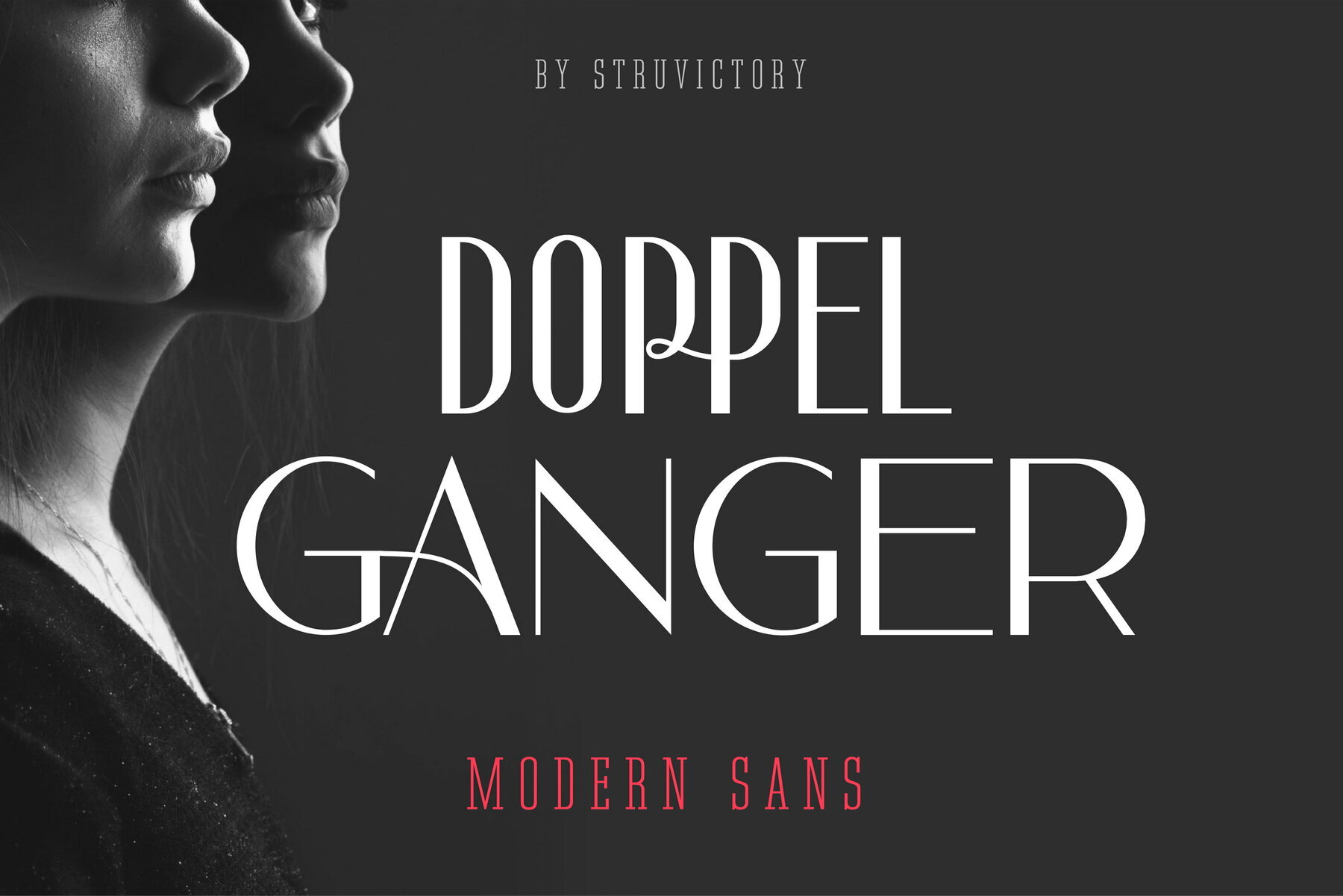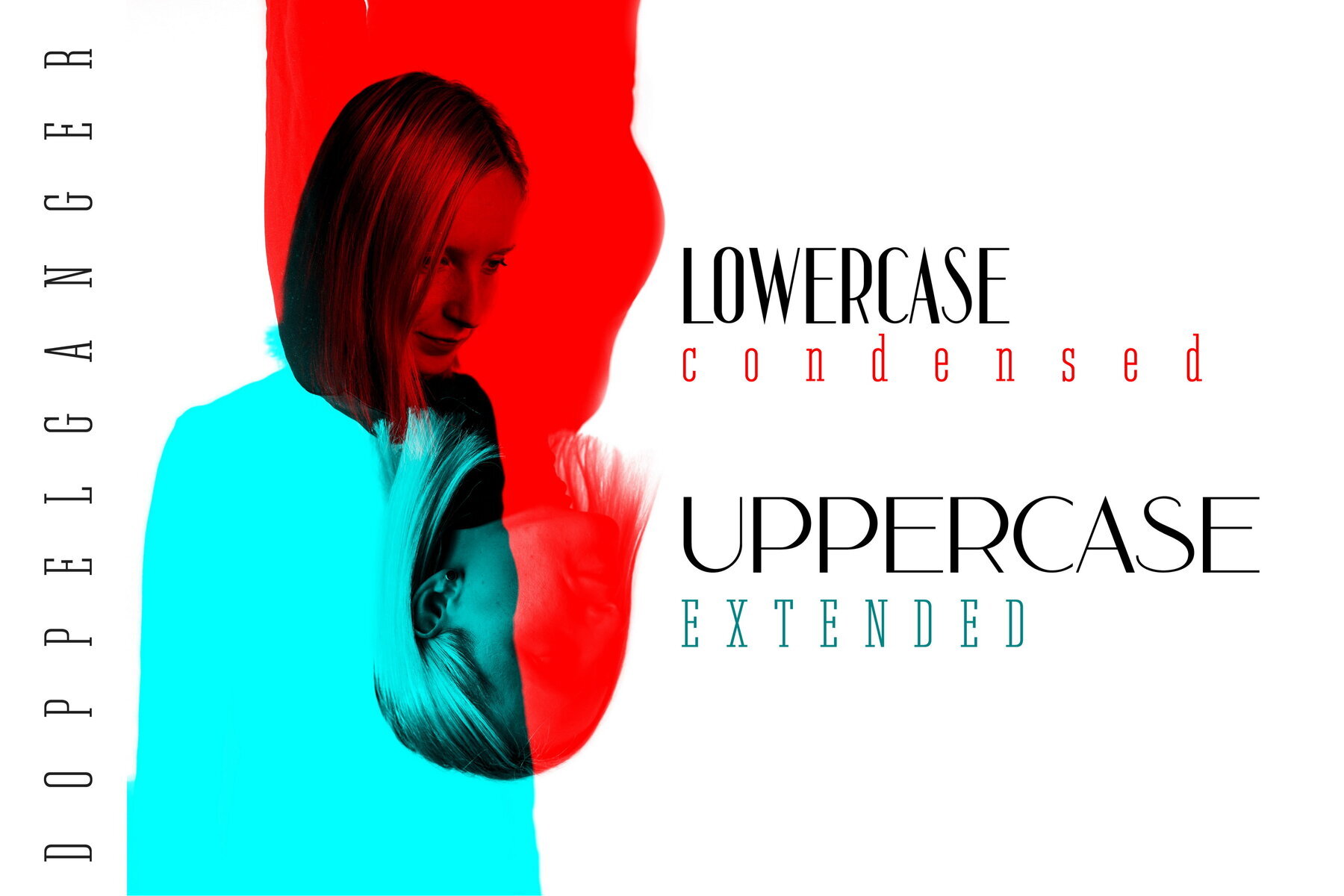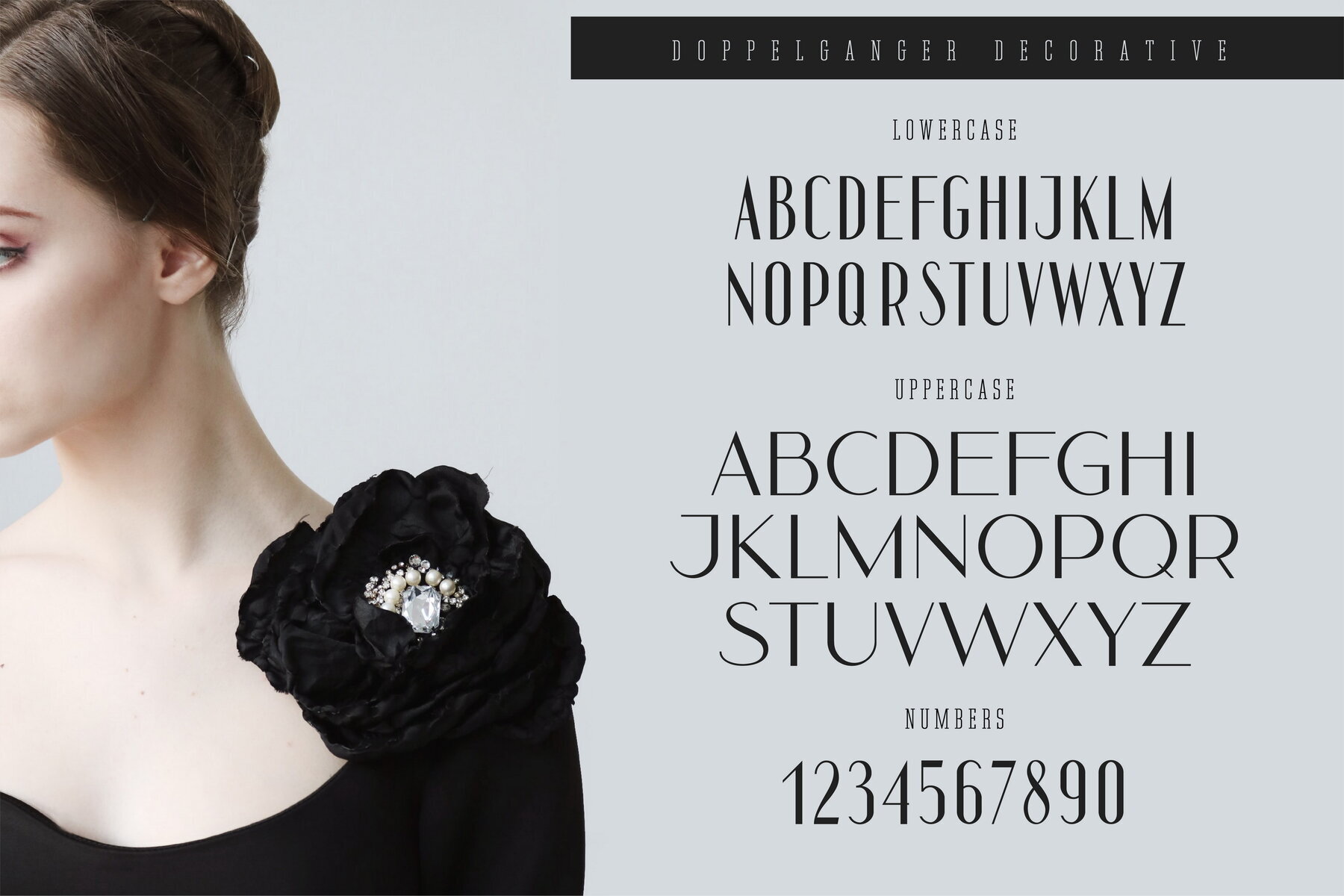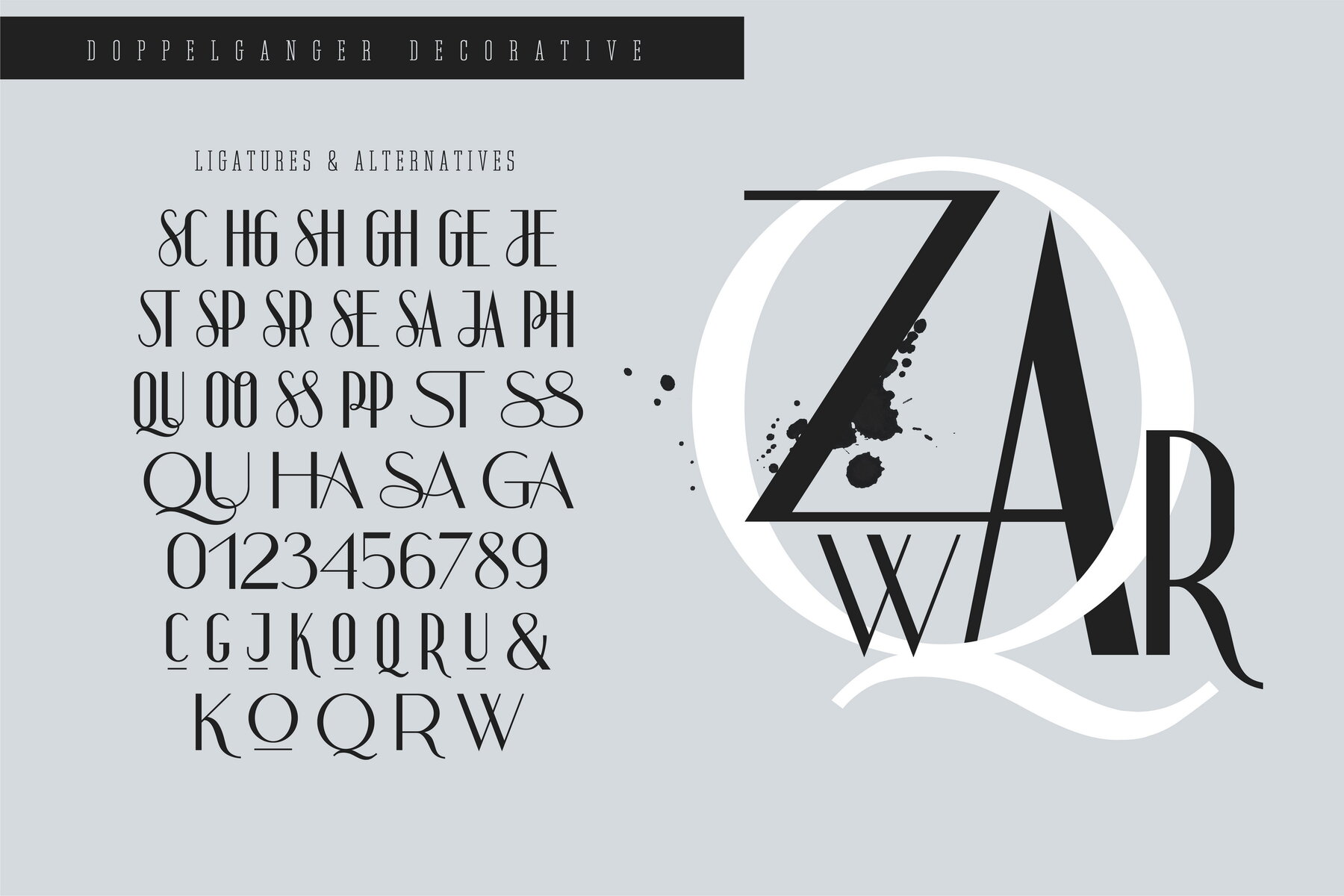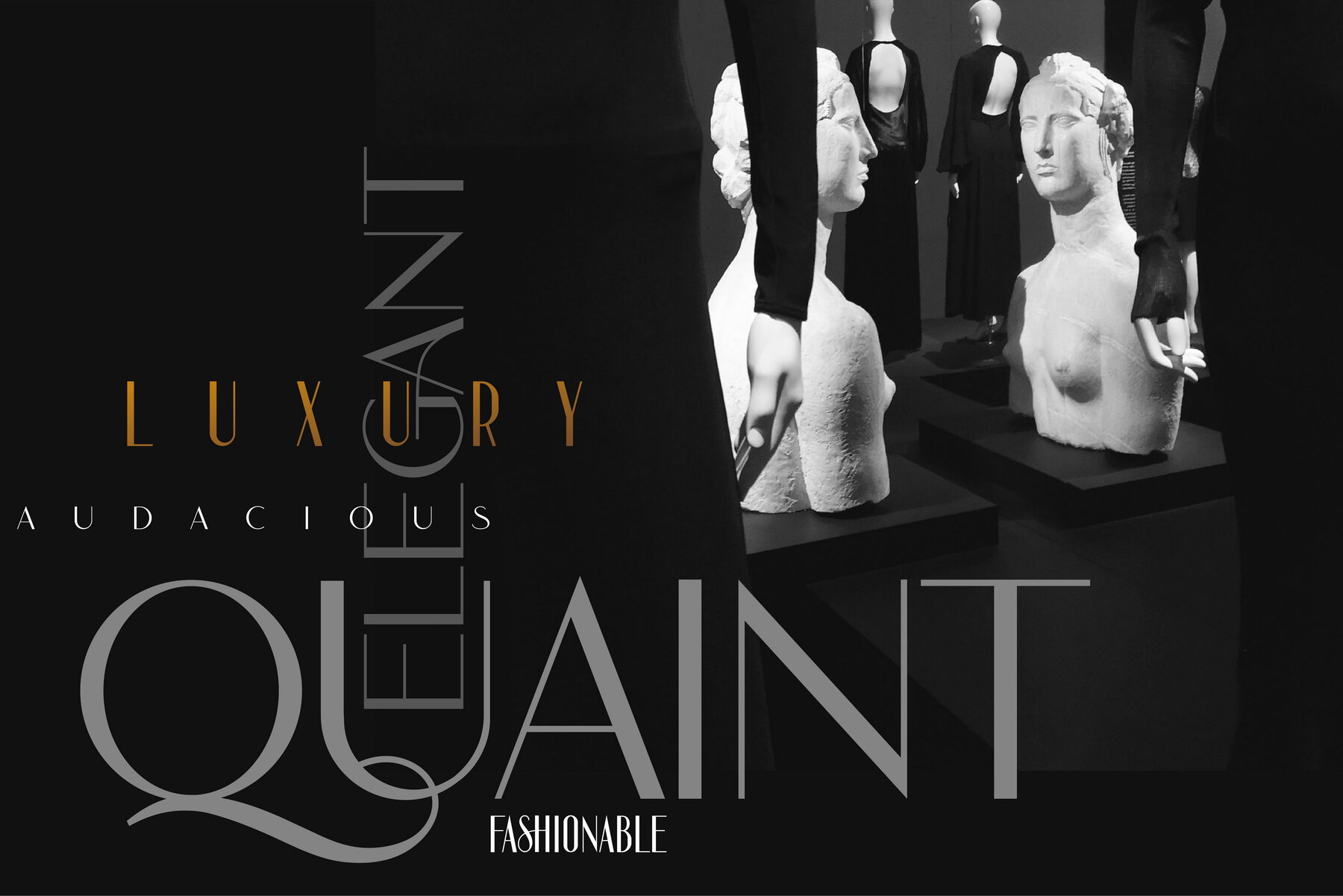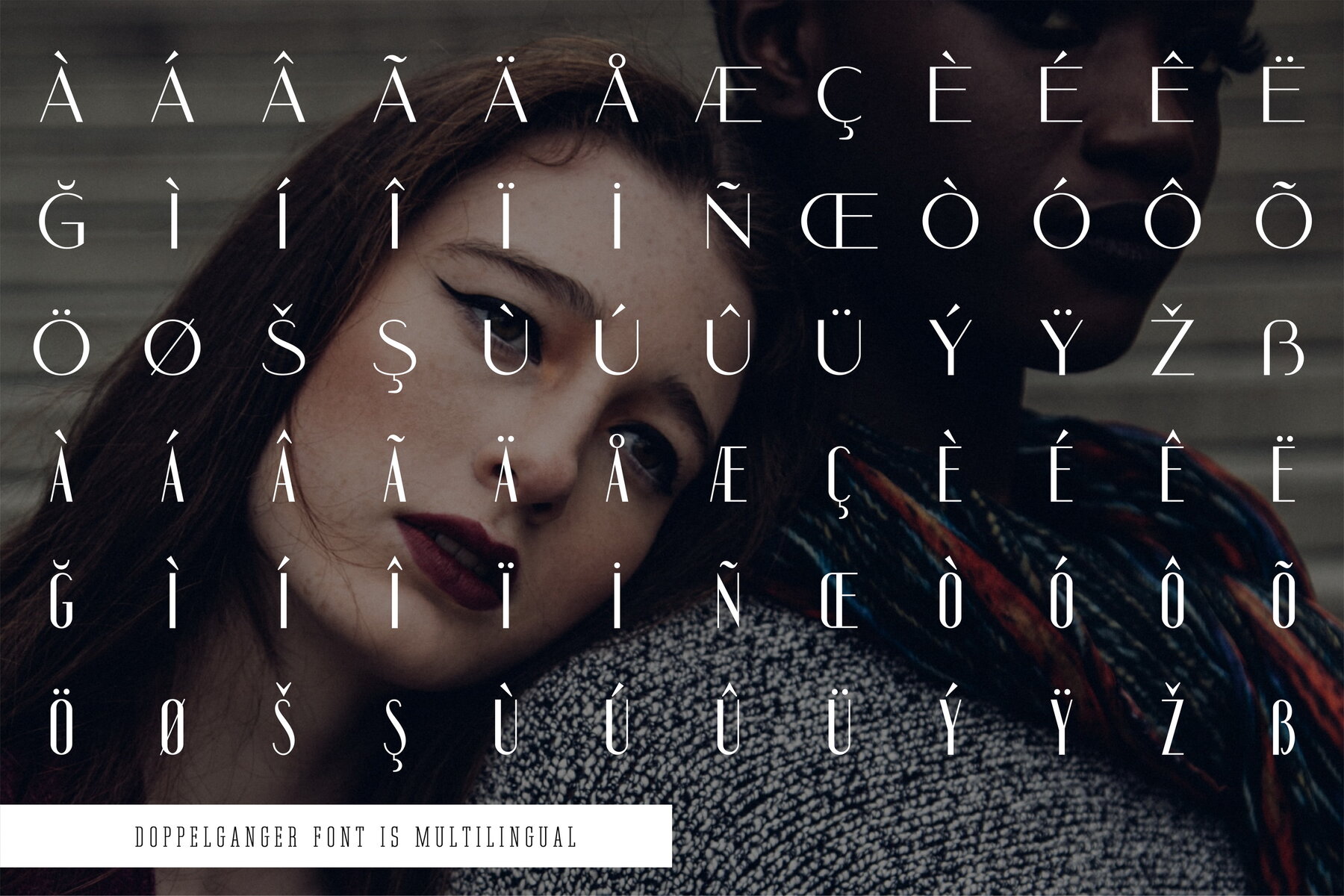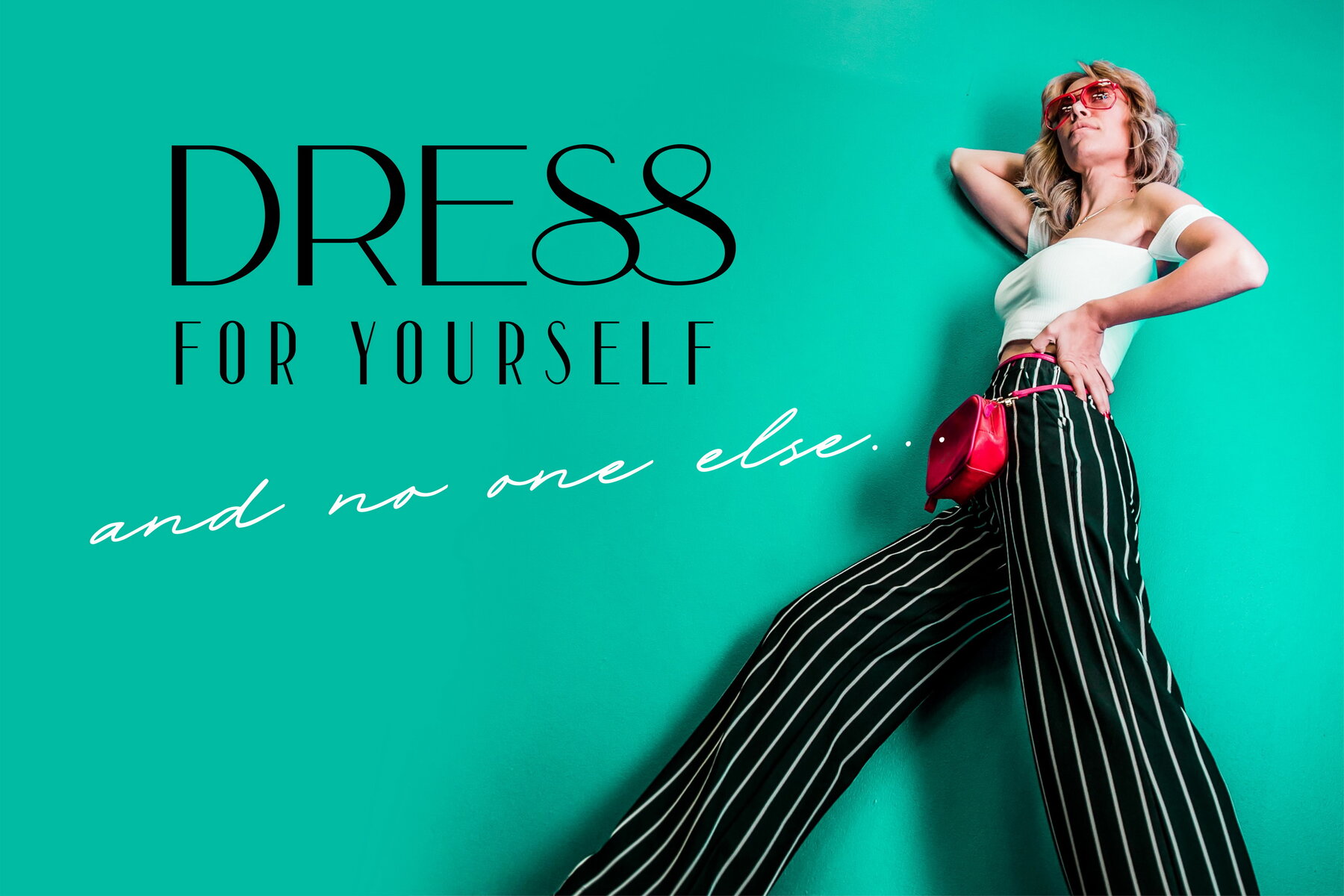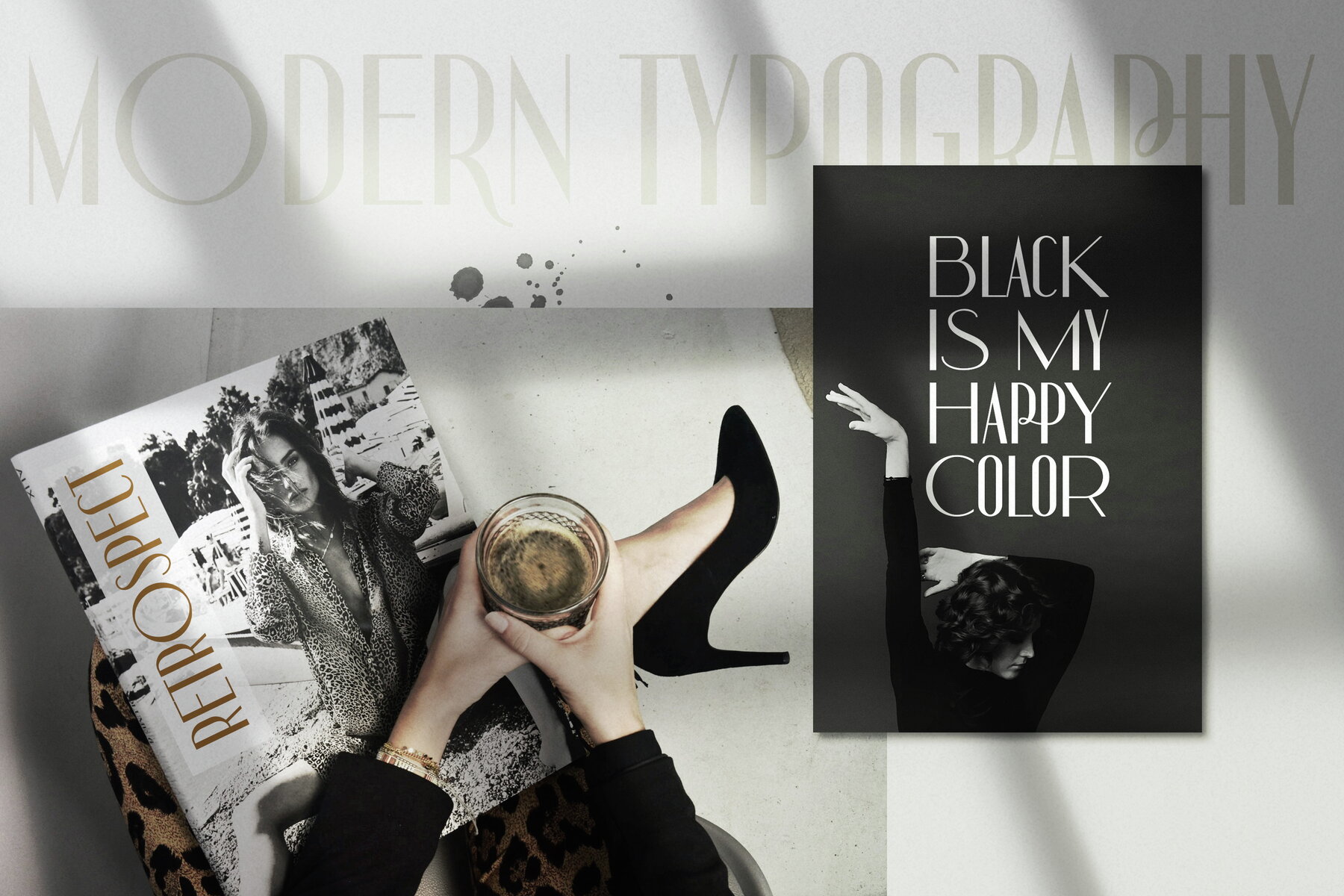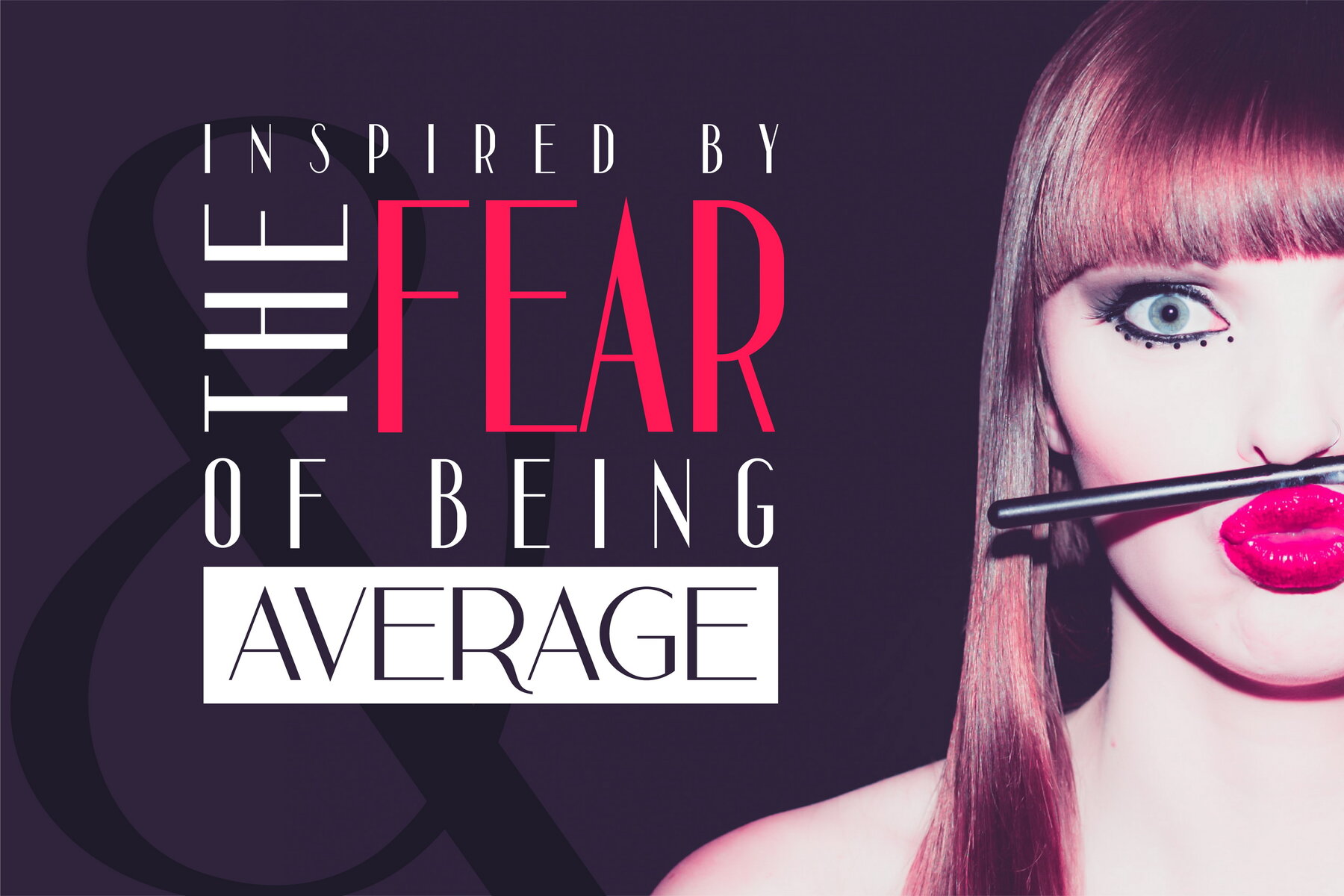
Doppelganger Font
Doppelganger Decorative
Doppelganger is a modern sans serif font featuring a unique combination of condensed lowercase and extended uppercase characters. This blend creates an elegant and contemporary design, perfect for various projects. Ideal for retro and modern typographic posters, prints, feminine branding, book design, and fashion magazines, Doppelganger offers versatility and style.
The font supports an extensive range of languages, including English, French, German, Italian, Spanish, Portuguese, Danish, Norwegian, Swedish, Finnish, Estonian, and Turkish. This broad language support makes it suitable for diverse international audiences. Additionally, Doppelganger includes stylistic alternates for many symbols and ligatures, ensuring a customizable and polished final product.